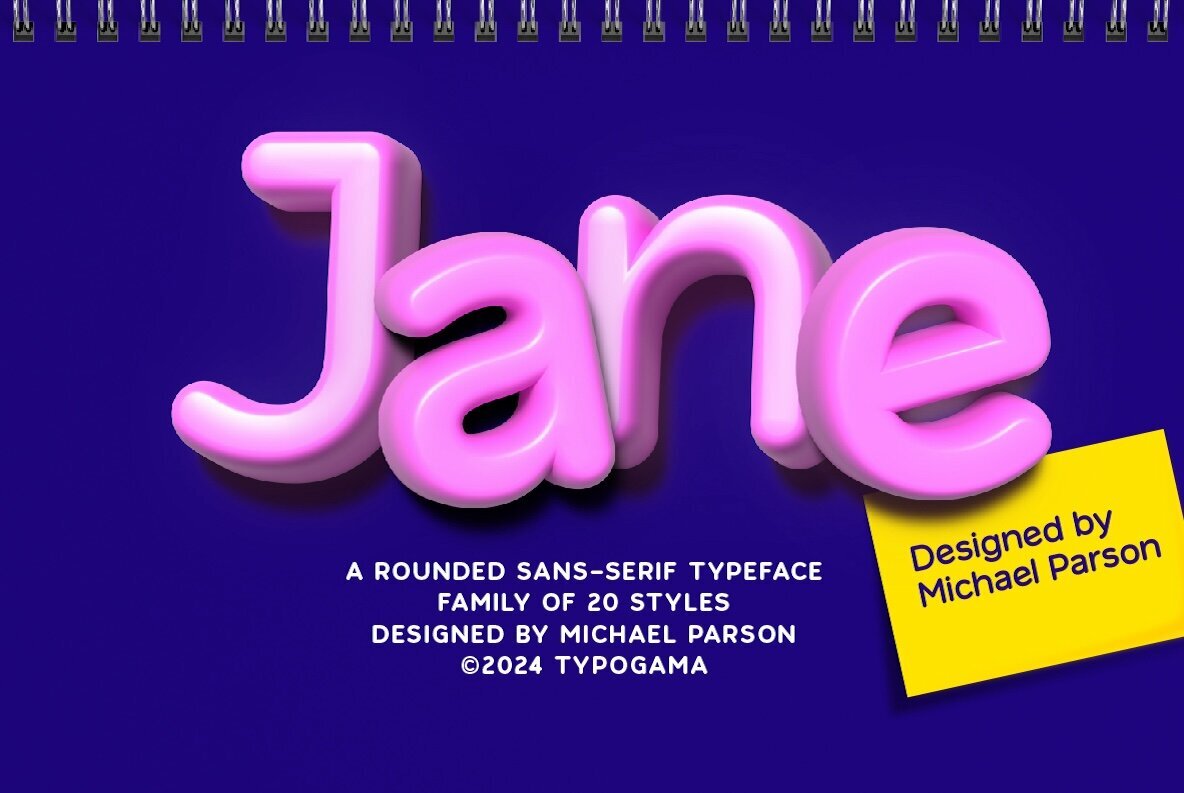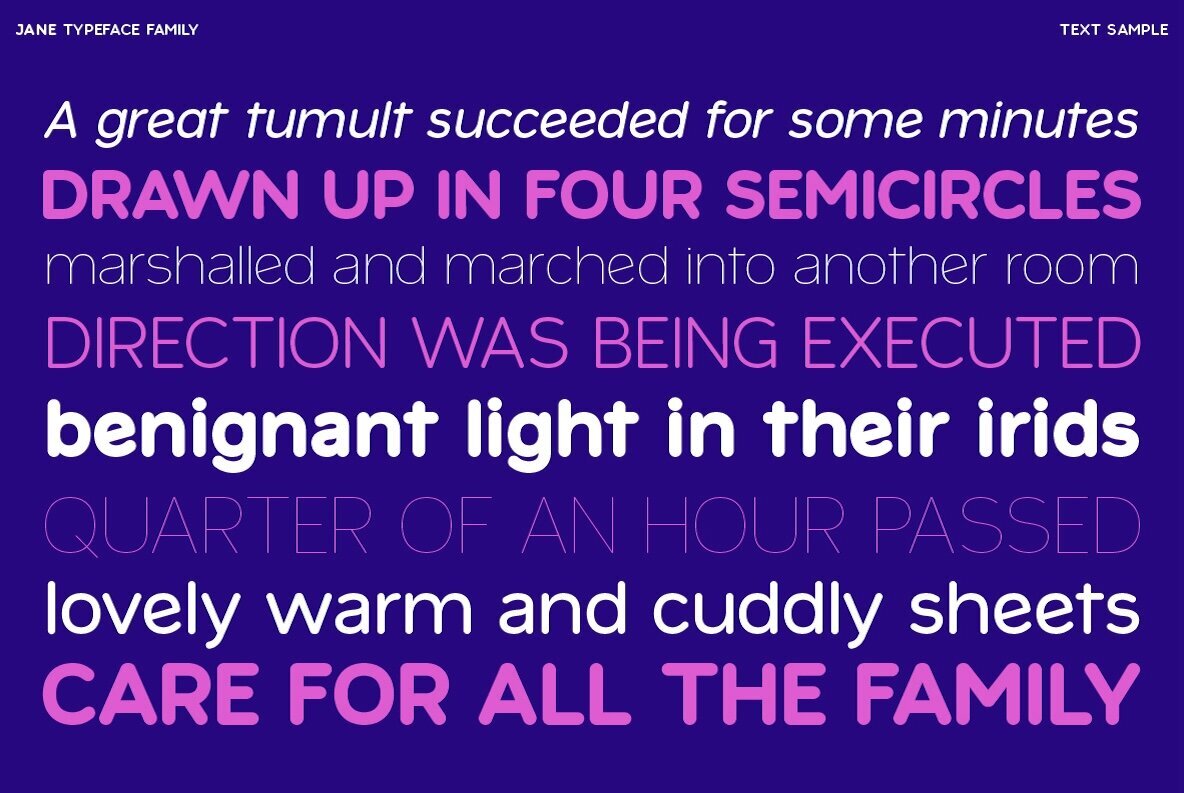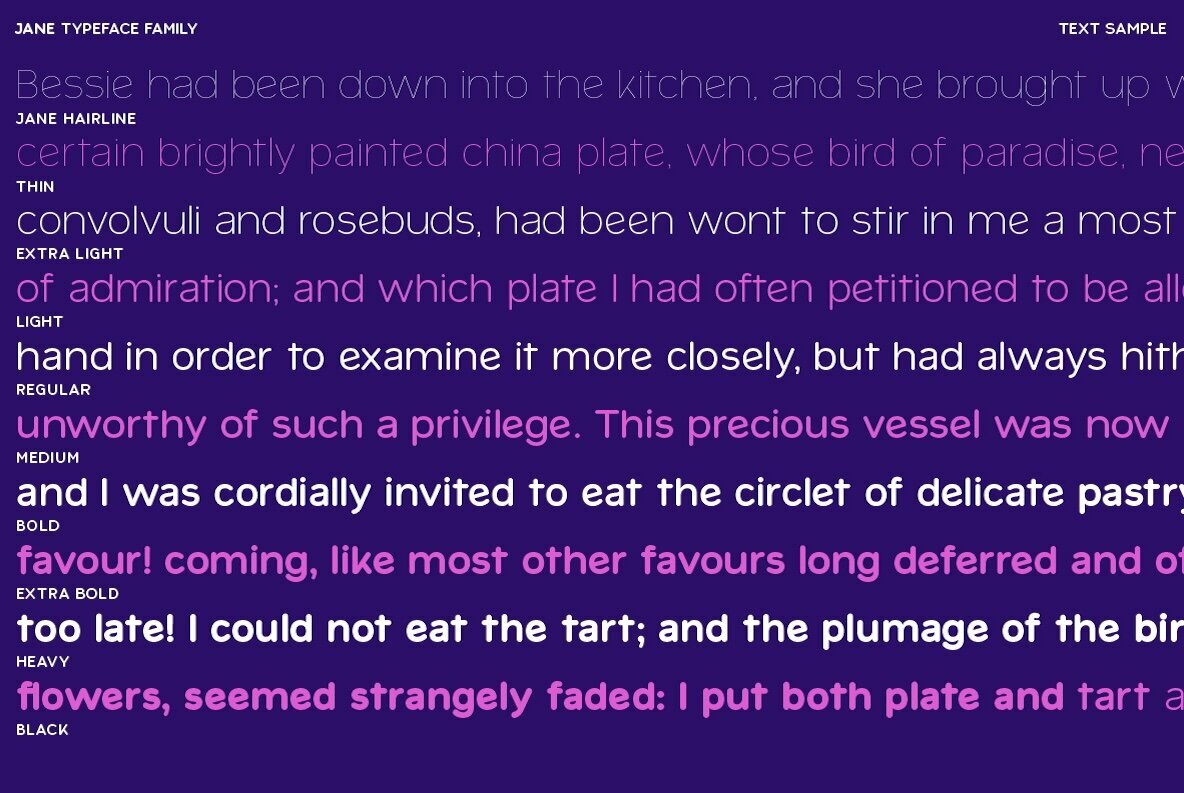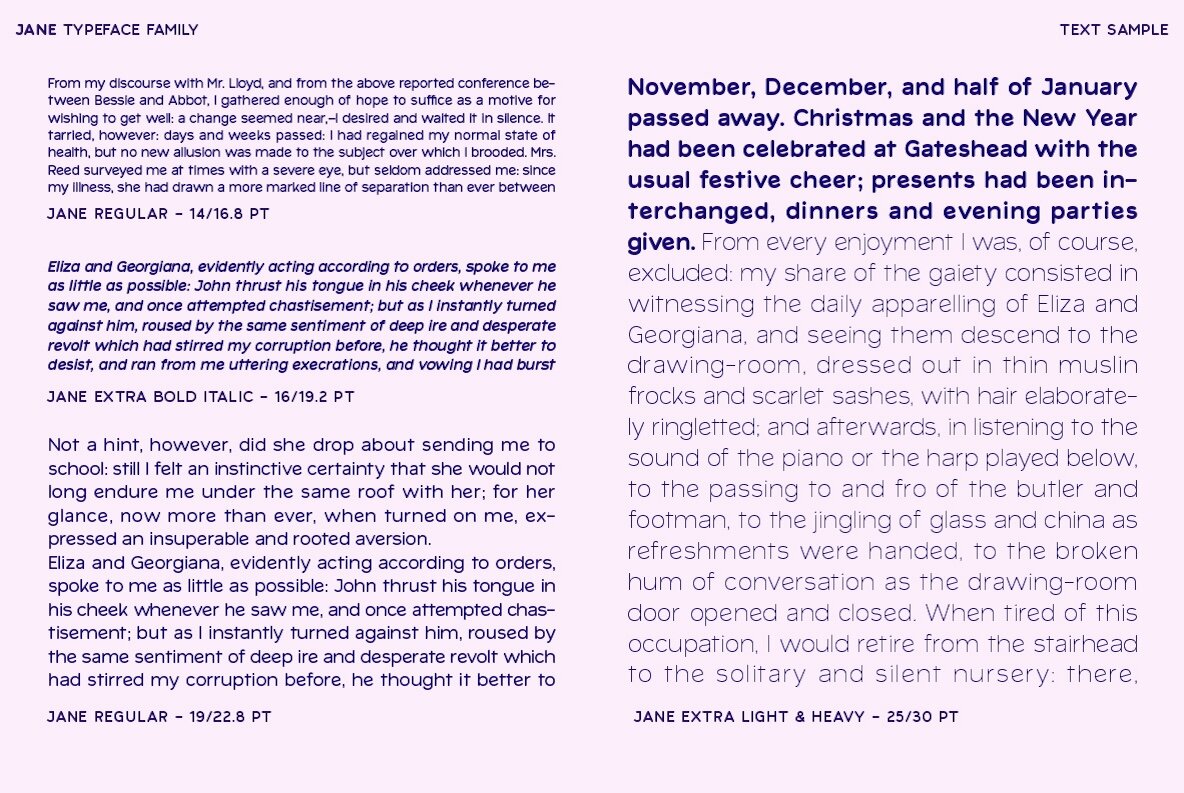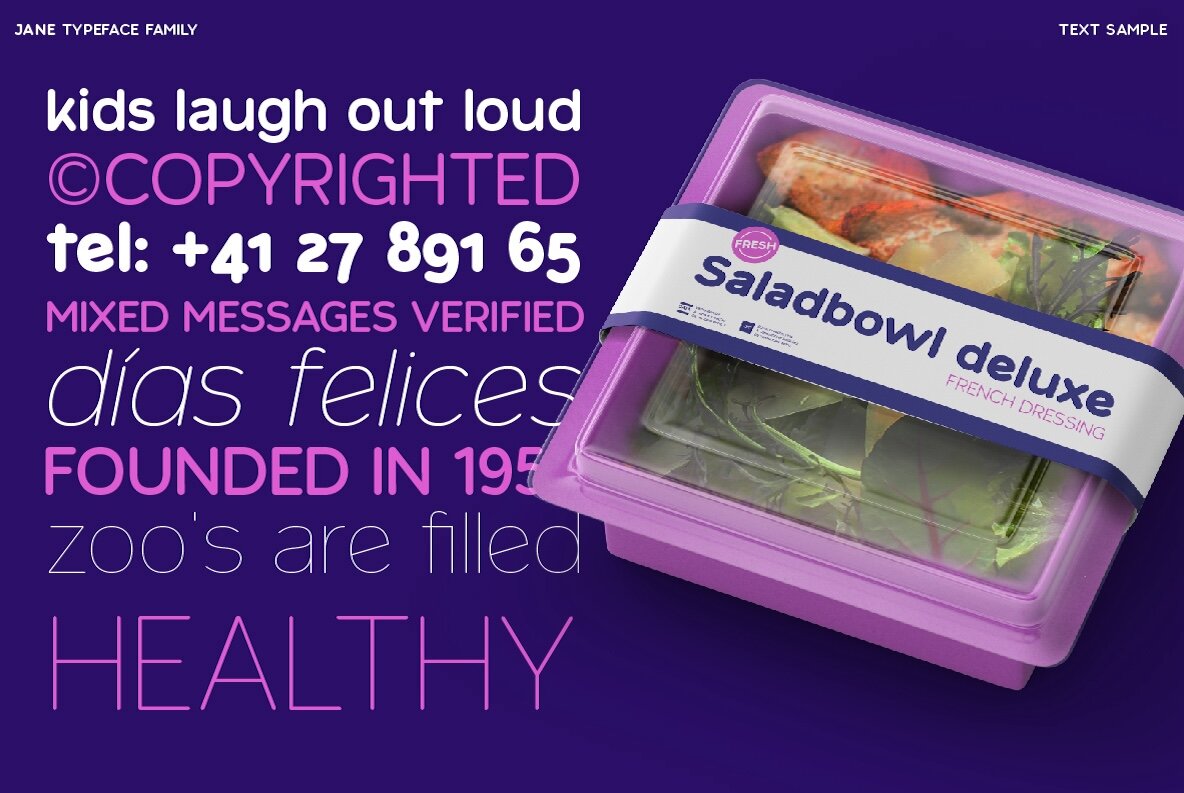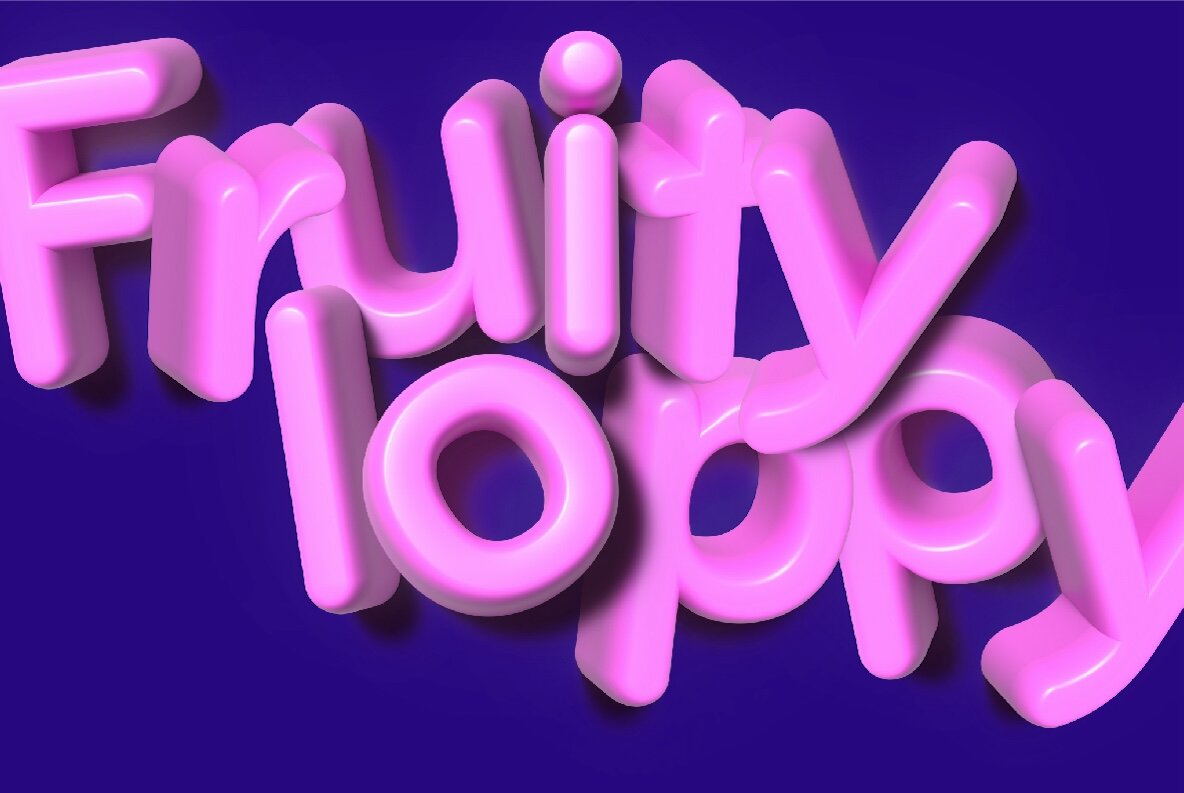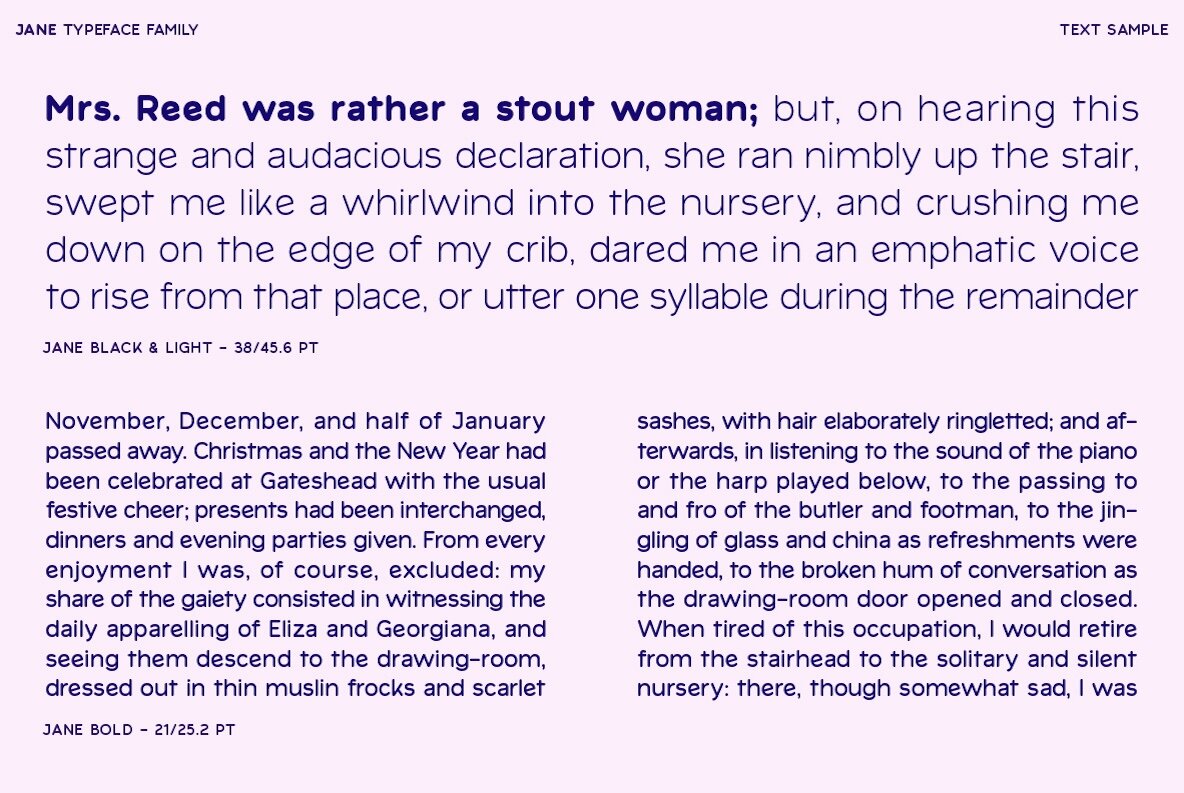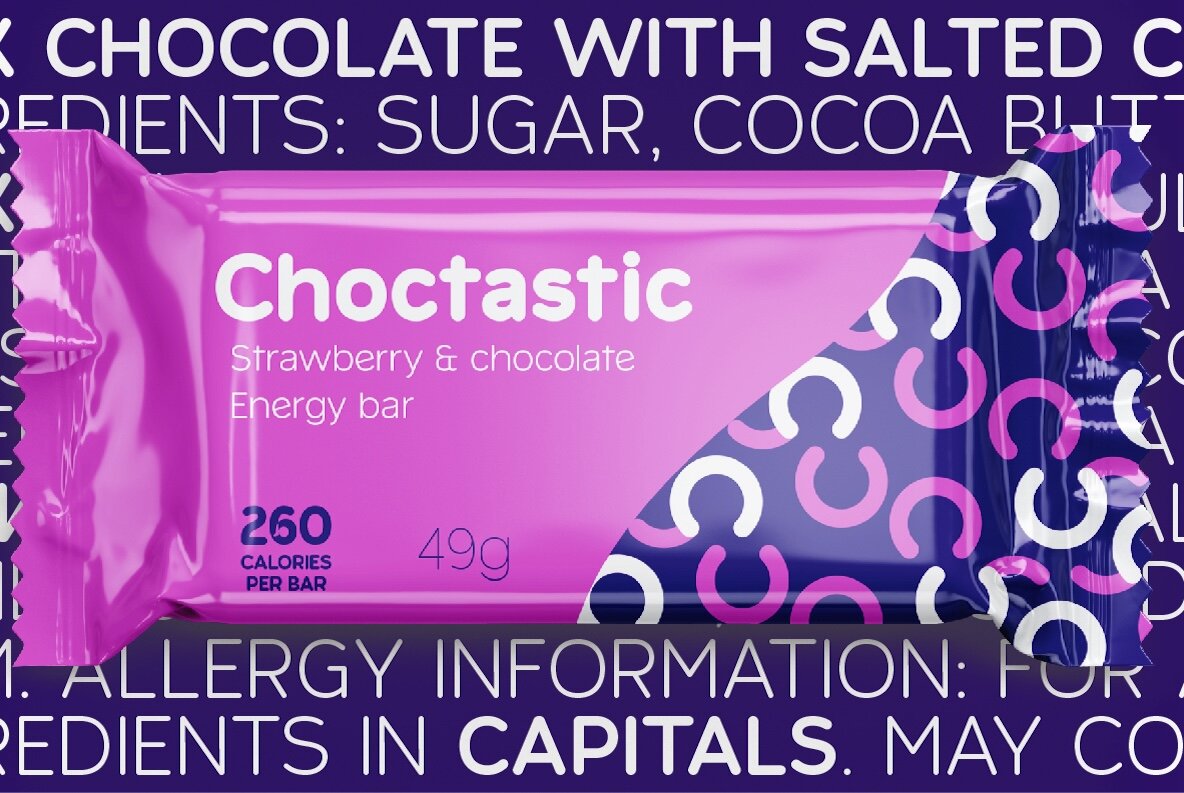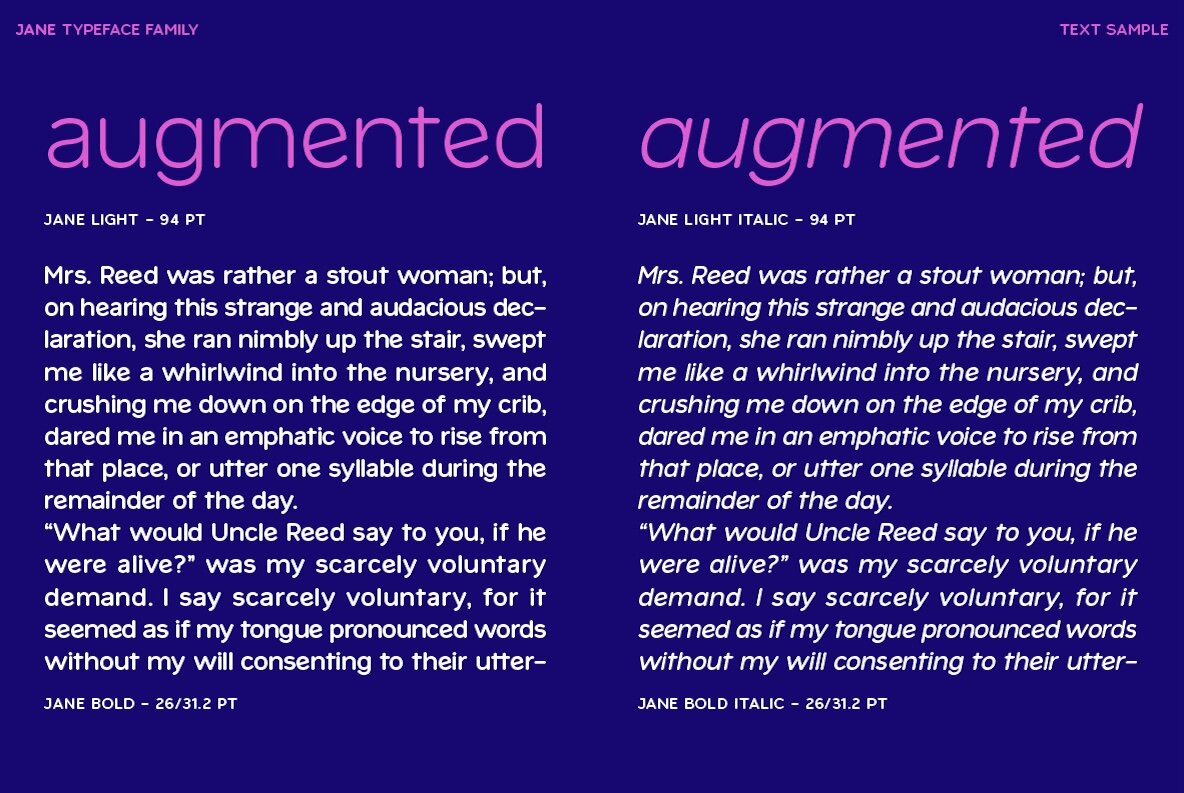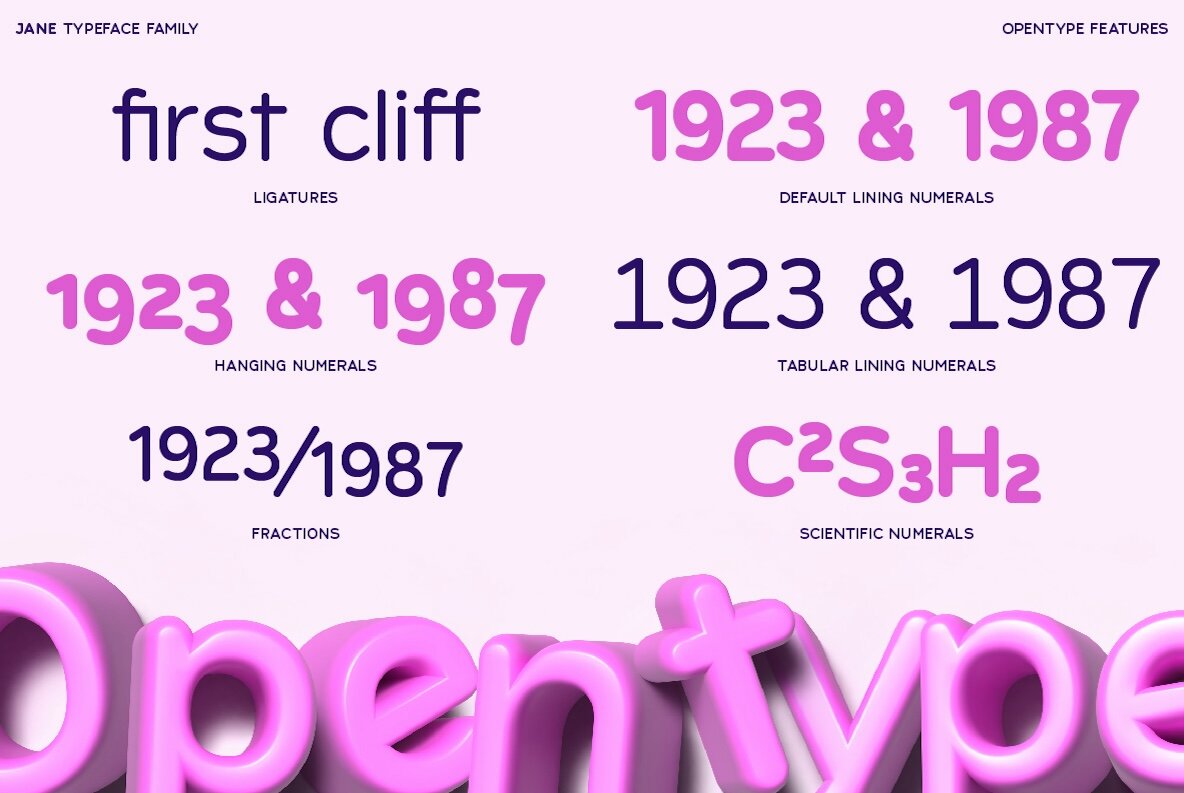
With the Jane font, the goal was to create a fun, friendly font that used some attributes of more classical typography, like using small capitals or the 2 storey 'a' letter. The result is a legible, clear font that can be used in small text or larger settings.